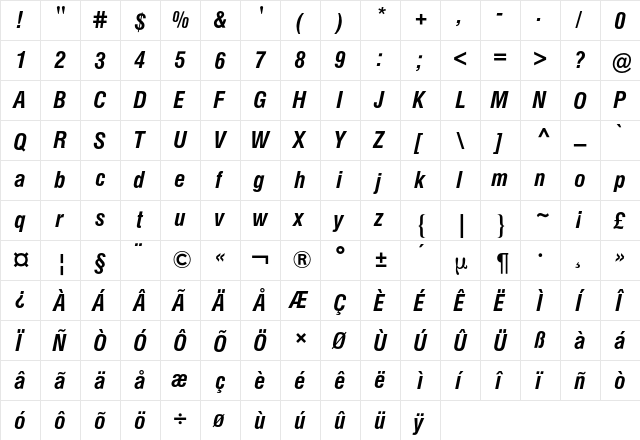
Helvetica 2 BQ Regular
Design Context for Helvetica 2 BQ Typeface
Helvetica 2 BQ offers clean, dependable letterforms without strong stylistic allegiance, making it a practical choice for designers who need flexibility.